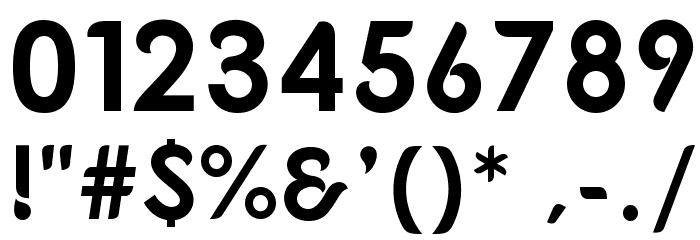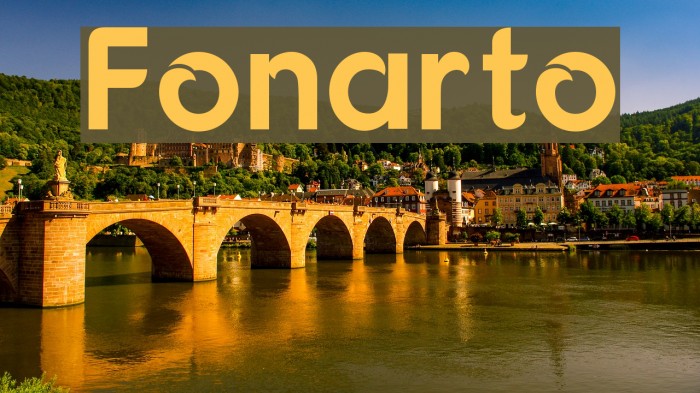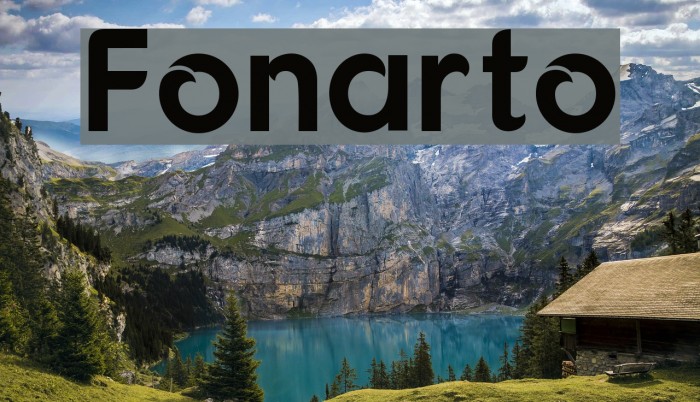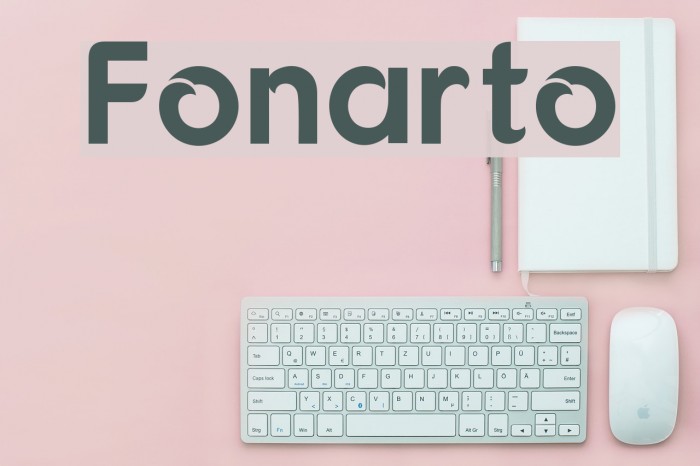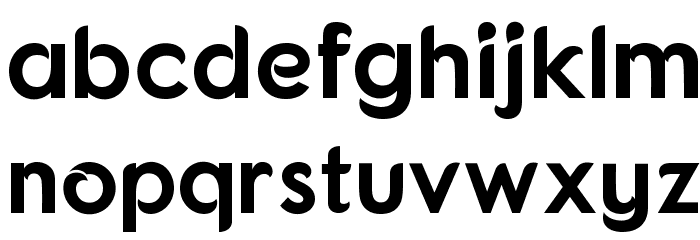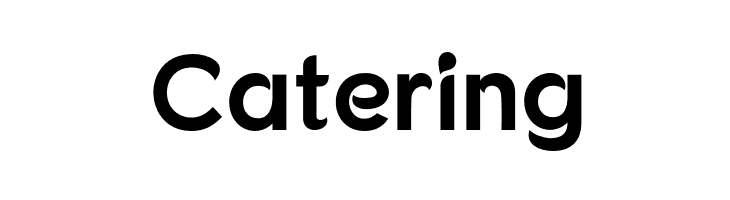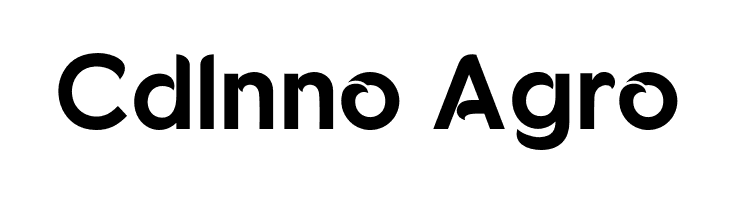
Fonarto Font
Fonarto Description
This font features a bold and modern sans-serif style with clean lines and a geometric structure. The uppercase letters are uniform in height, providing a strong and cohesive appearance. The lowercase letters maintain a consistent roundness, contributing to a friendly and approachable look. The numerals are clear and easy to read, making them suitable for various applications. Special characters are well-defined, enhancing the font's versatility. Overall, the design is contemporary, with a slight emphasis on curves, making it ideal for both digital and print media.
A bold, modern sans-serif font with clean lines and geometric structure from Uncategorized fonts.
- Proposed Projects: Ideal for branding, advertising, digital media, and print materials such as posters and brochures.
- Use Case: Headlines, Logos, Branding